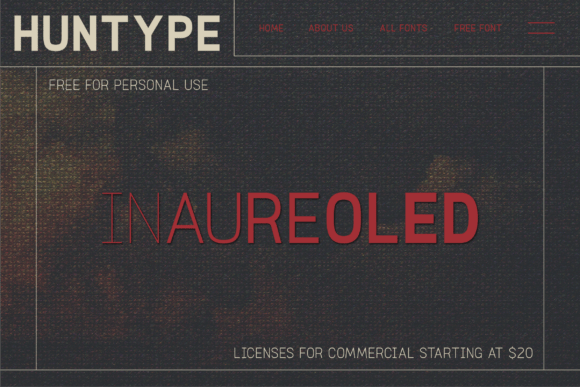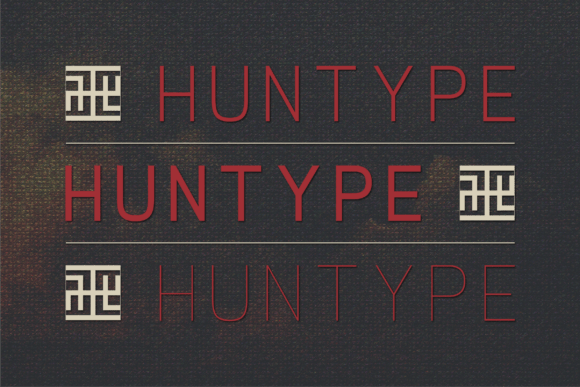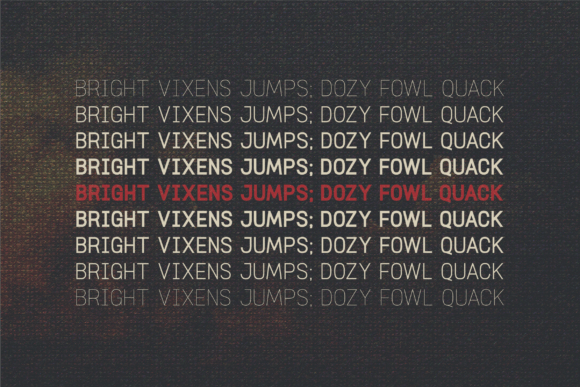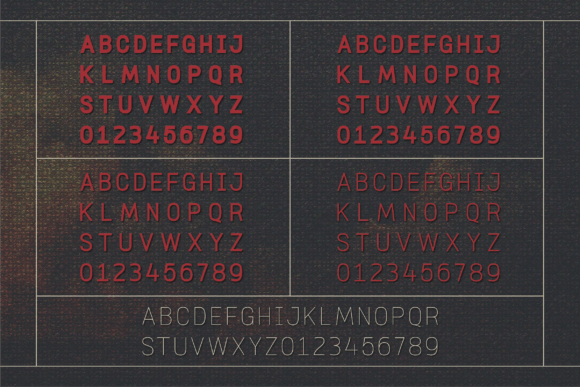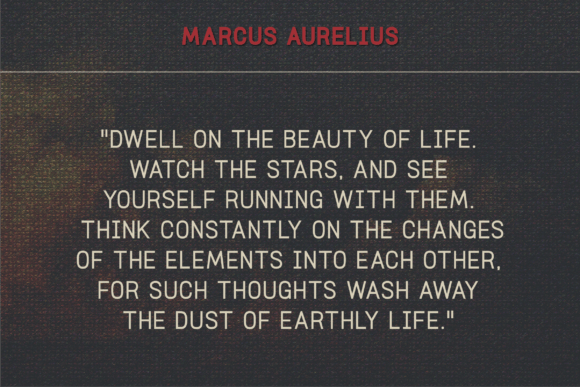
Introduction to Inaureoled Font
Imagine you’re working on a creative project, and you’re trying to find the perfect font to convey your message. You’ve searched high and low for that one font that exudes high quality and sophistication, but it’s just out of reach. That’s when you stumble upon the Inaureoled Font – a modern and versatile font family that’s sure to elevate your design to the next level.
With its clean geometric forms and subtle sophistication, the Inaureoled Font is the perfect design resource for any creative project. Whether you’re working on a free download or a paid project, this font family has got you covered. From its transparent background to its adaptable style, the Inaureoled Font is a valuable asset for any designer looking to make a statement.
With five unique fonts to choose from – Thin, Light, Regular, Bold, and Black – the Inaureoled Font offers endless possibilities for designers. From delicate and sophisticated to bold and impactful, this font family has something for everyone. So why settle for an ordinary font when you can have an extraordinary one? Dive into the world of Inaureoled Font and discover a new level of design excellence.
Key Features of Inaureoled Font
- High-quality font design with a unique, artistic style, perfect for creative projects.
- Features a large character set, including uppercase and lowercase letters, numbers, and punctuation marks.
- Perfect for use in logos, branding materials, and other creative projects where a unique, eye-catching font is desired.
Honest Review: Inaureoled Font
I recently came across the Inaureoled Font and I must say it’s a high quality design resource that’s perfect for any creative project. The font itself is quite unique, with a transparent background that makes it easy to work with.
- ✨ Unique design that’s perfect for creative projects
- ✨ High quality font that’s easy to work with
- ⚠️ Limited customization options
Overall, I’m quite impressed with the Inaureoled Font. It’s a great addition to any designer’s toolkit, especially for those working on creative projects. While it has some limitations, the benefits far outweigh the drawbacks.
Tips for Getting the Most Out of Inaureoled Font
Use the Inaureoled Font in conjunction with a high-quality image or design element to create a visually stunning design. Experiment with different font sizes and styles to add depth and interest to your design. You can also use the font as a design resource for creating social media graphics, flyers, and other marketing materials.
The Inaureoled Font is a versatile design resource that can be used for a variety of creative projects, including:
Yes, the Inaureoled Font is designed to be highly legible on both light and dark backgrounds, including transparent backgrounds. Its high-contrast design ensures that the text remains clear and readable even when placed on a transparent or semi-transparent background.